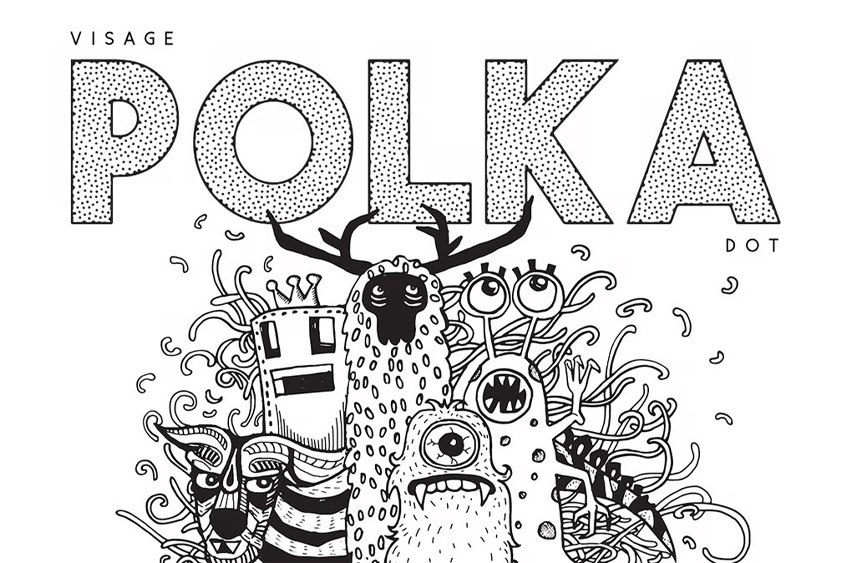
Visage Polka Dot Font
Visage Polka Dot Font version of Visage is great for big titles and has a friendly vibe to it. Includes uppercase multilingual letters, punctuation, and numbers.
Works great in color as well!